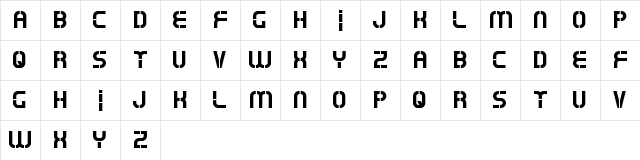
Oxin Army
| Style | Army |
| Designer | Carlos Matteoli |
Design Context for Oxin Typeface
Oxin has the no-nonsense character of military stencilling and tactical signage, projecting authority and directness.
A strong choice for security brands, outdoor gear, and high-stakes visual communication.
Font Pairing: Use alongside a condensed or geometric sans for supporting copy — keep the pairing bold, functional, and free of ornament.
Pro Tip: Try Oxin in all-caps for the most authentic military signage feel. It pairs well with stark, minimal layouts and muted colour palettes.